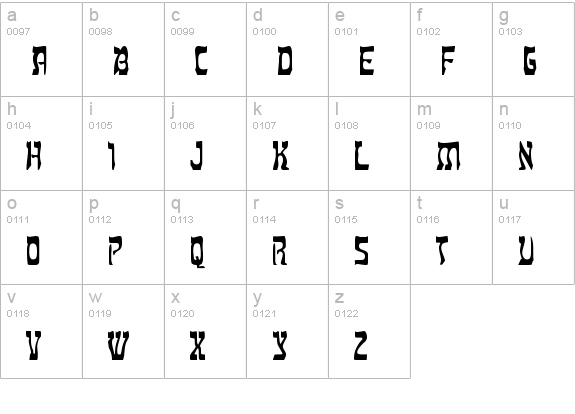
Kosher Normal is the standard, neutral variant in the Kosher typeface family \xE2\x80\x94 well suited to general body text, paragraphs, and standard typographic work.
Kosher Normal font is a modern and versatile typeface that combines classic elegance with contemporary flair. Its clean lines and balanced proportions make it perfect for a wide range of design projects, from branding to editorial design. The Kosher Normal font is not only visually appealing but also highly legible, making it a great choice for both print and digital applications. This font is freely available to download at FontsMarket.com, allowing designers and creatives to access this high-quality typeface without any cost. With its timeless appeal and easy readability, Kosher Normal font is sure to elevate any project and leave a lasting impression on viewers. Whether you're working on a website, a poster, a logo, or any other design, Kosher Normal font is a fantastic choice that will help you achieve a polished and professional look.